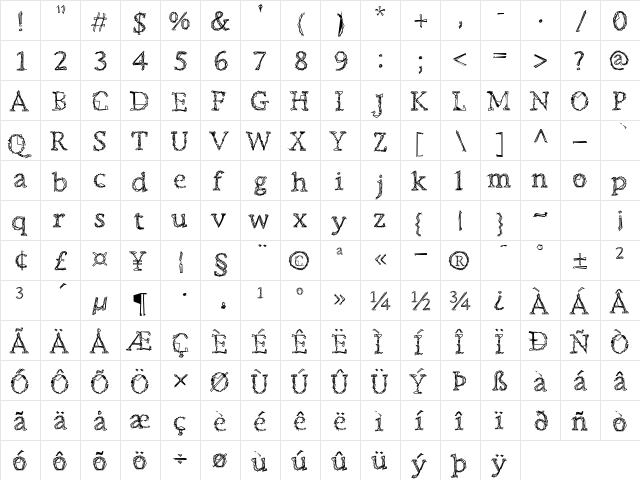
Citore Regular
Design Context for Citore Typeface
Citore is a composed and adaptable typeface that performs quietly and consistently across a wide range of design contexts.
Pro Tip: Use Citore in both headline and body roles to test its range before committing to a single application.